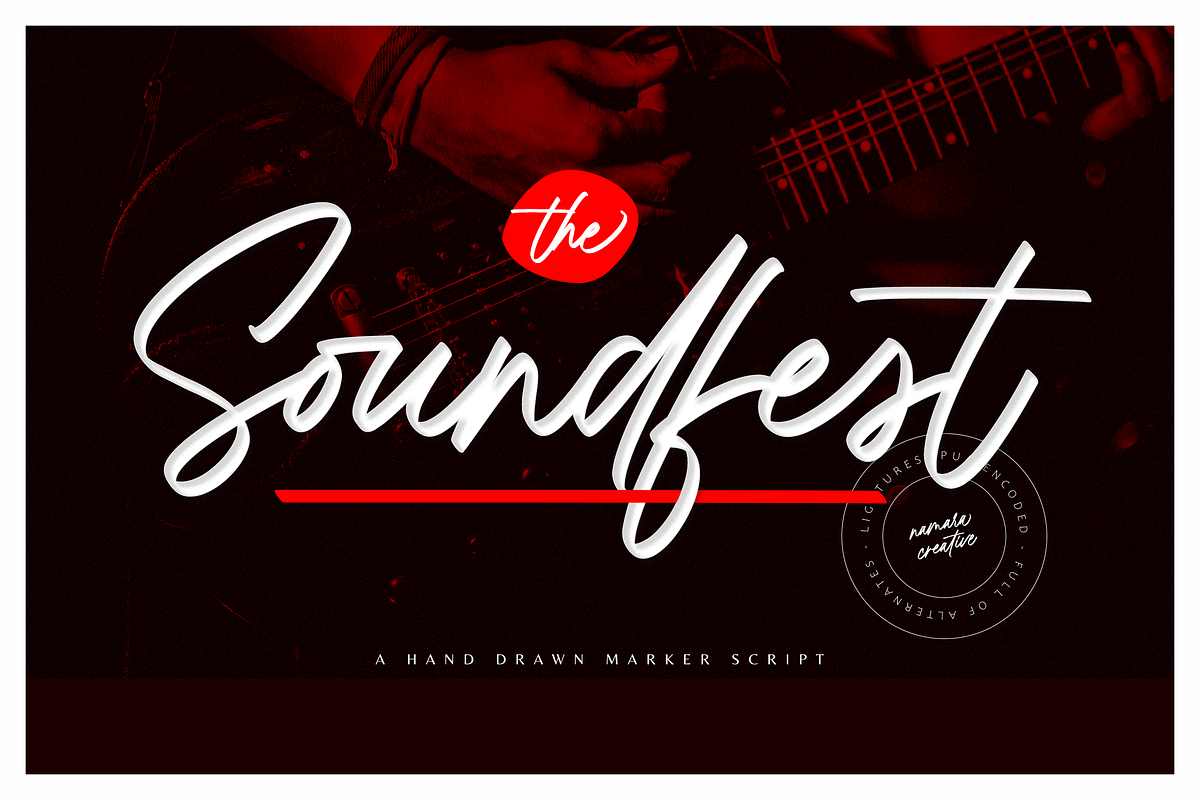
Soundfest - Hand Drawn Marker Script Font Free Download is a bold, expressive script font inspired by marker-style handwriting. Featuring dynamic strokes, rough edges, and an energetic flow, Soundfest is perfect for music-related branding, posters, event flyers, social media graphics, and any project that needs a creative, hand-drawn look.
Its playful, raw aesthetic adds a personal touch to your designs while maintaining readability. Whether you're creating promotional materials, logos, or casual content, Soundfest brings an authentic, artistic vibe to your typography.